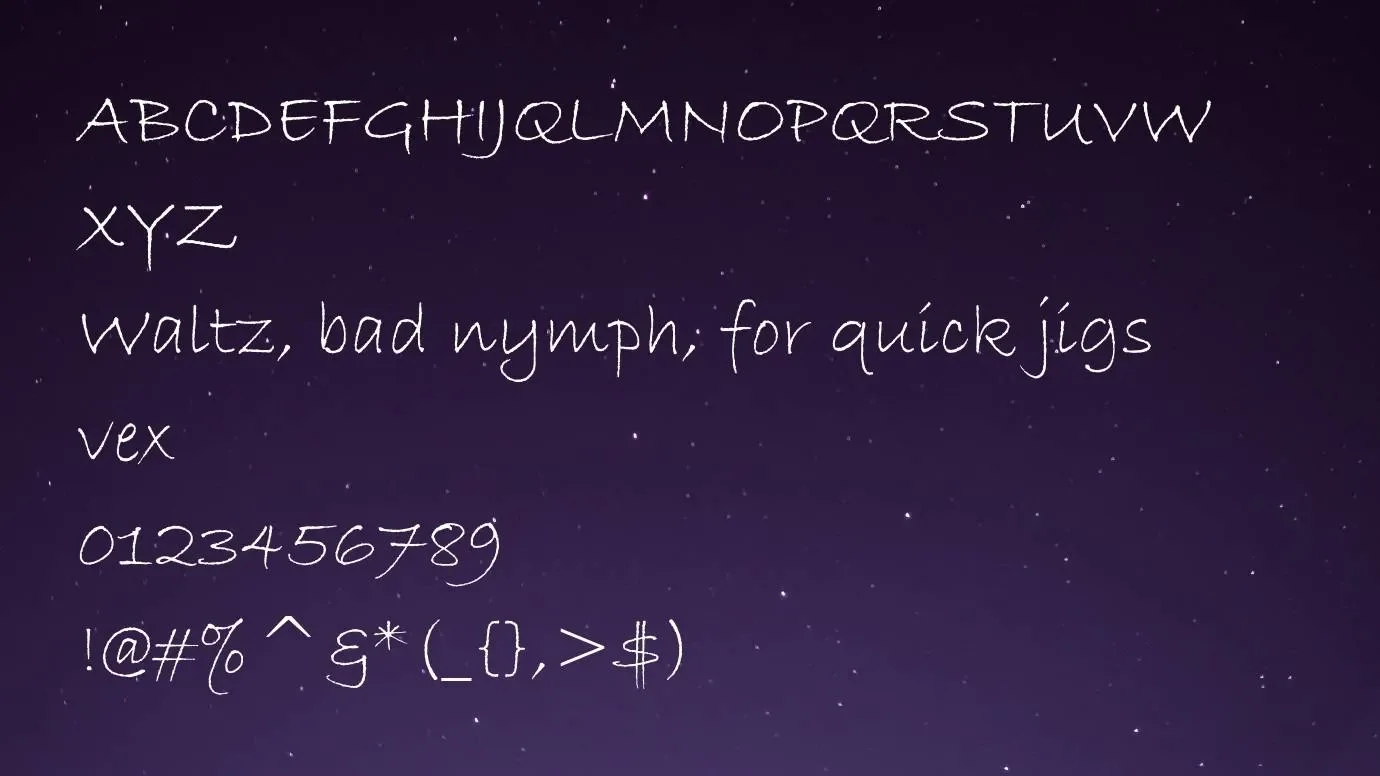
Bradley Hand Font is a very stunning typeface that belongs to the script typeface family and comes in very unique and quirky textures. The primary designer of this staggering typeface is a notable Richard Bradley who has released in 1996 through a great type foundry called International Typeface Corporation. Richard Bradley has designed with keen interest and took a long time while creating this amazing typeface.
He added some features that would be suitable for creating web pages. This font family contains including Regular and Negrita. This font family is completely based on the hand-drawn letterings that’s why the letterings of this typeface seem to be drawn with an original pen on rough paper. It offers TrueType features that are suitable for giving a romantic touch to all your designs and texture content.
Reason to Use Bradley Hand Font
Along with its impressive textures and high-quality look, it is greatly known for its display uses as well as print media. You can make such astonishing designs when used with the pairing of Impact font for example greeting or business cards, posters, logos, certificate designs, prints on clothes or mug designs, Branding projects, Stationeries, sport or lady’s products designs, and watermarks on Photos would too be a good approach.
You can also create amazing text designs with the help of this typeface such as big or short paragraphs, headlines, or titles. It can be also utilized within an office environment or used for official documentation purposes in a governmental organization. If you are running a Youtube channel then it would be an ideal font for creating your video thumbnails.
Bradley Hand Font View
Who created the Bradley Hand font?
This is an informal script typeface that is based on the handwritten of a British designer named Richard Bradley. It has warmth and the coolest letterings that seem to be drawn using an original pen on rough paper.
What font goes well with Bradley Hand Font?
Due to its clean and staggering characters, it goes with many other typefaces. But Arial font and Impact font will make best paired with this handwritten typeface.
When was Bradley Hand font created?
This gorgeous typeface was the creation of a British designer Mr. Richard Bradley who has published it in 1996 through International Typeface Corporation (ITC).